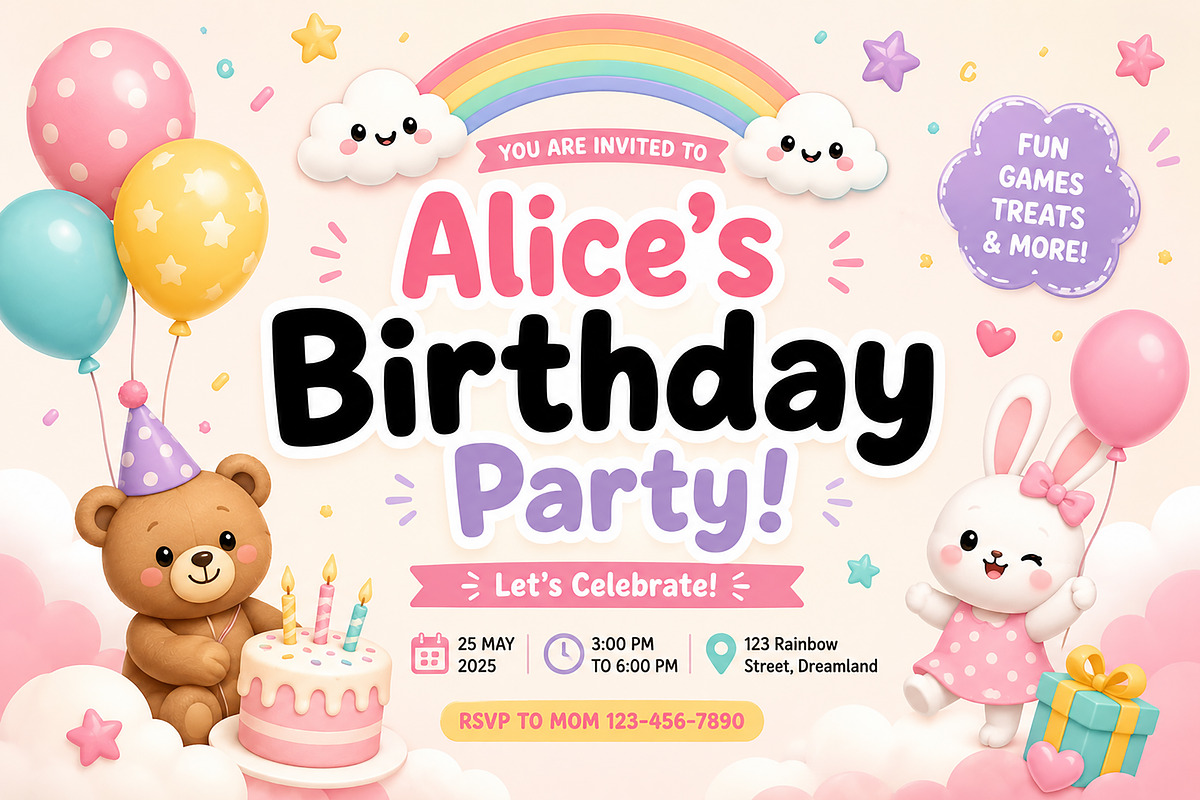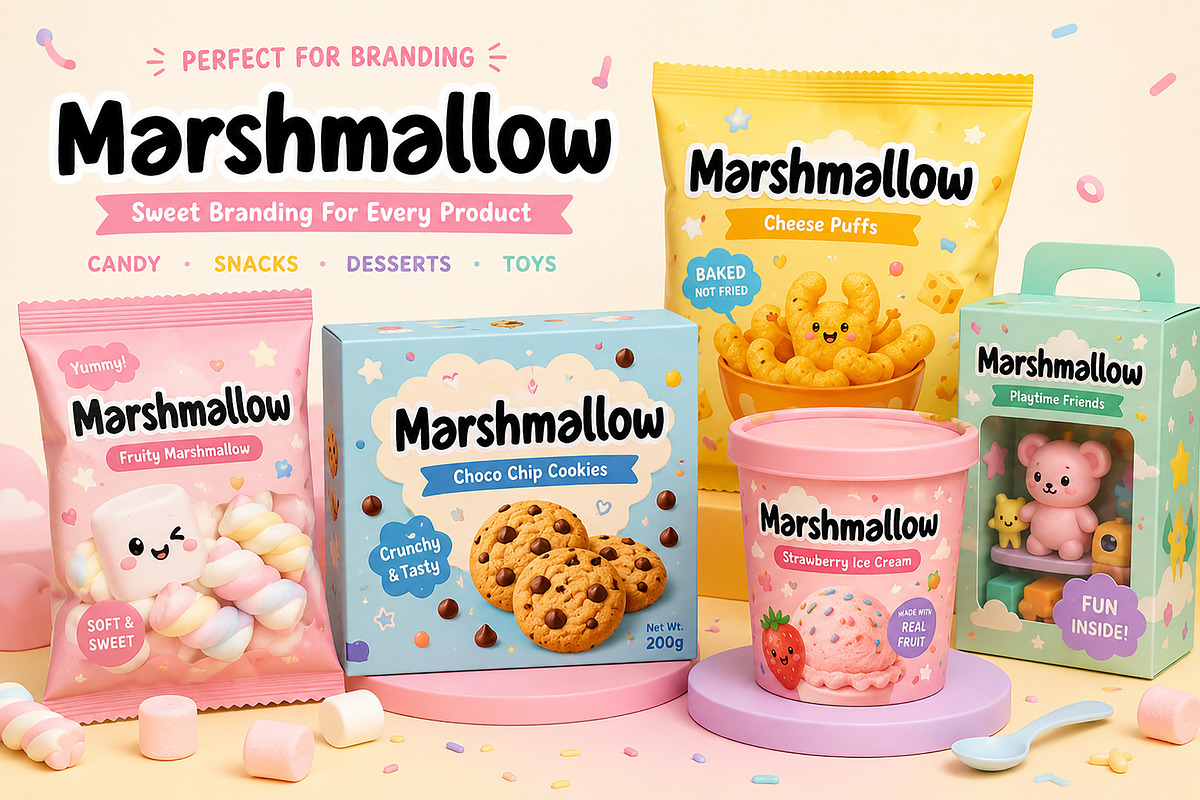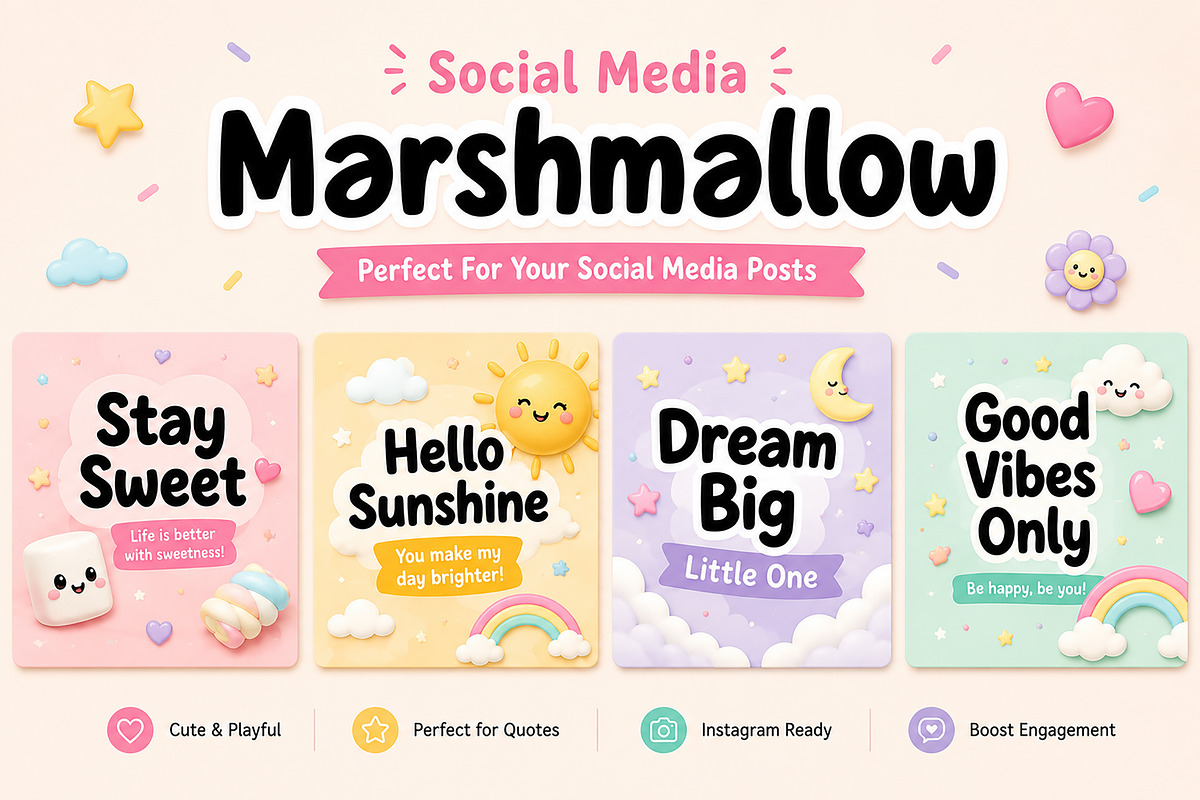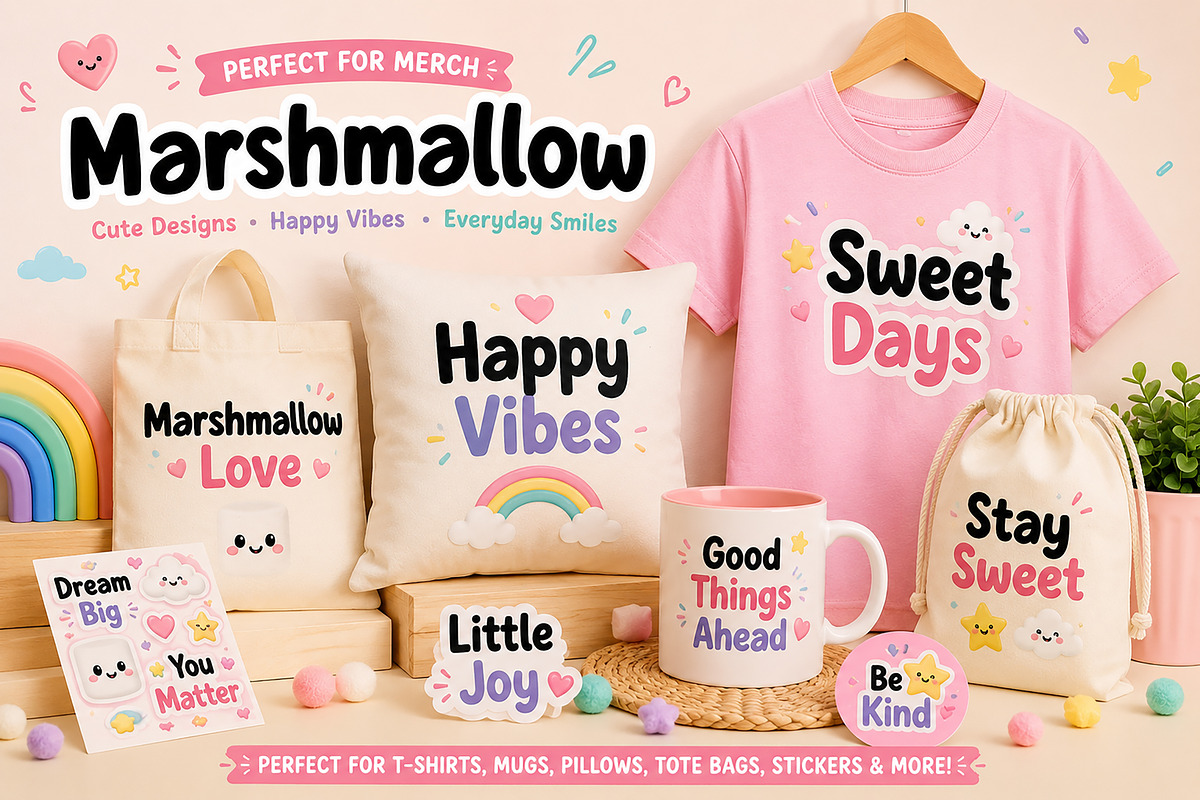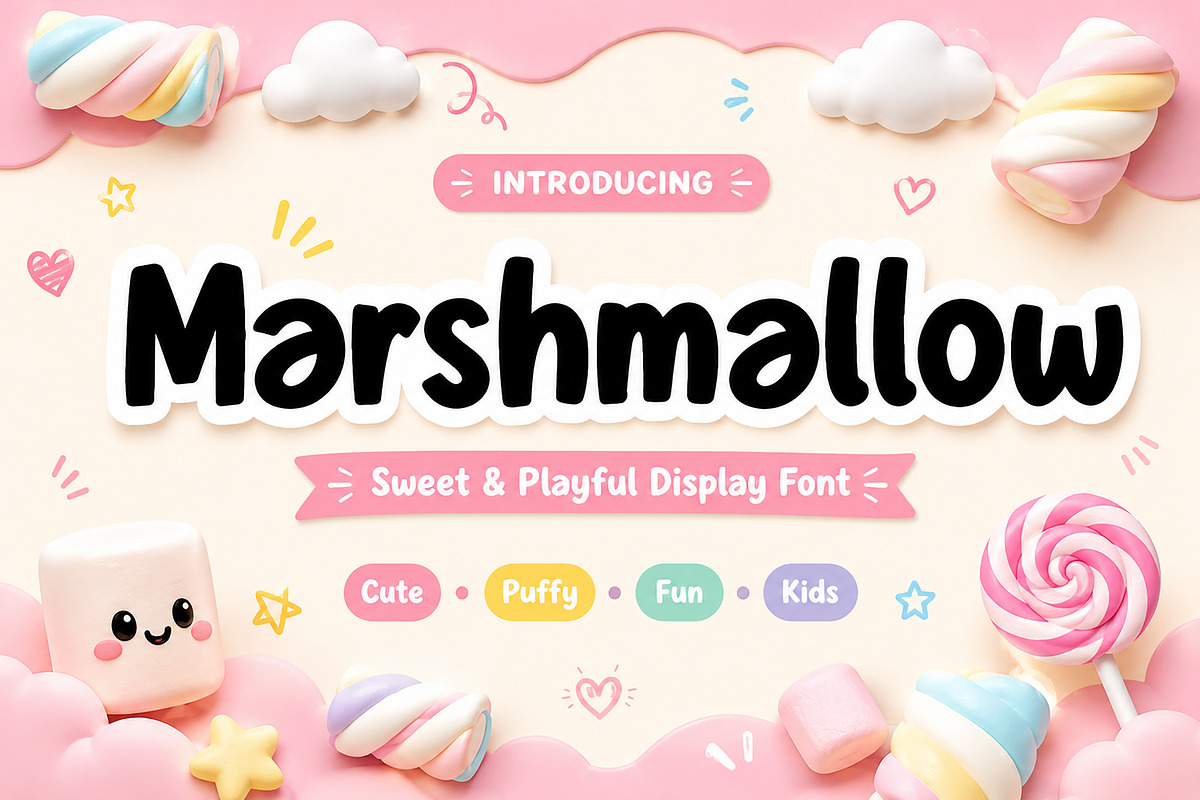
Marshmallow
Marshmallow – Cute Playful Display Font
Marshmallow is a sweet, playful, and cheerful display font designed to bring fun and happiness into your creative projects. With its soft rounded shapes, puffy letterforms, and charming personality, this font is perfect for kids-themed designs, candy branding, playful packaging, nursery quotes, birthday invitations, baby products, social media posts, and fun merchandise.
Its bold and friendly style makes it easy to read while keeping a cute handmade feel. Whether you're creating snack packaging, toy branding, children’s books, or adorable wall art, Marshmallow adds a joyful and lovable touch to every design.
• Kids Branding
• Candy Packaging
• Birthday Invitations
• Baby Shower Designs
• Nursery Wall Art
• Children’s Books
• Social Media Quotes
• T-shirts
• Stickers
• Mugs
• Tote Bags
• Toy Packaging
• Playful Logos
• Cute Posters
Bring sweetness, fun, and playful energy into your next project with Marshmallow!